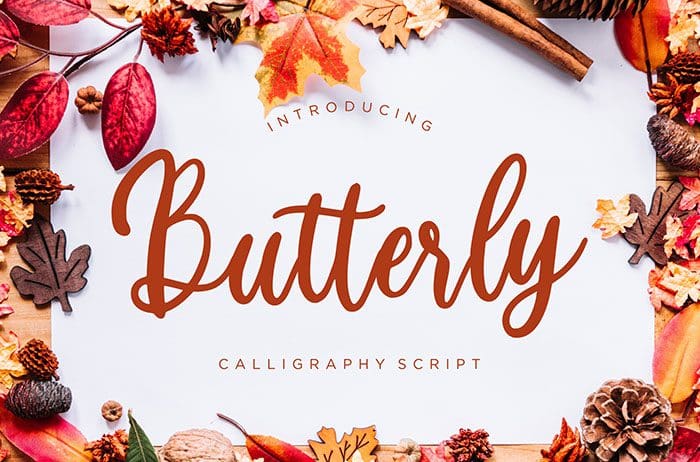
Butterly Script Font
Butterly is a calligraphy Script Font that elegant and classy looks. Butterly is perfect for branding projects, logo, wedding designs, invitation, and more. Thanks to Creatype Studio for sharing this font! Take a look at this portfolio for more of his stunning fonts.